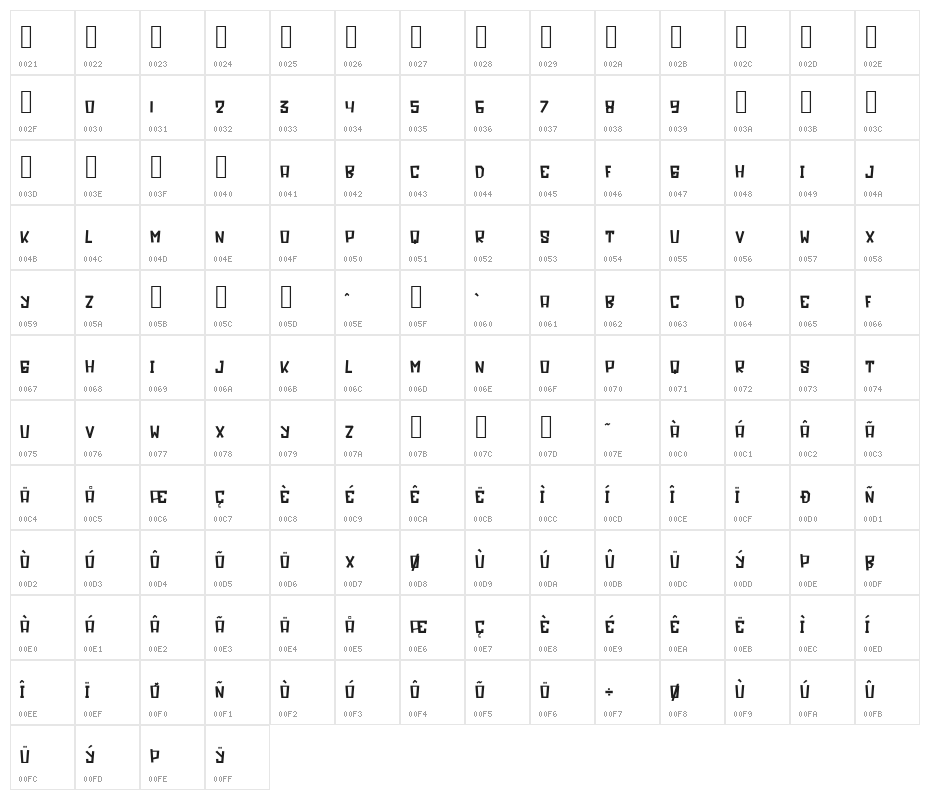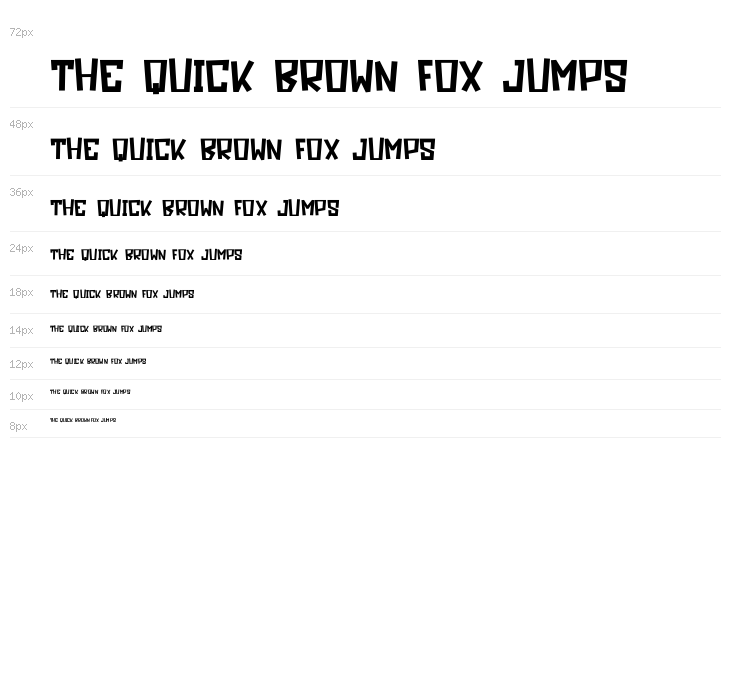
Limoline Font
Limoline Description
This font features a bold and angular design, characterized by its sharp edges and geometric shapes. The uppercase letters exhibit a strong presence with a slightly condensed form, giving them a compact and impactful appearance. The numbers follow the same stylistic cues, maintaining consistency throughout. The font's unique style is further emphasized by its high contrast between thick and thin strokes, adding a dynamic and modern touch. The absence of lowercase letters and special characters suggests a focus on simplicity and clarity, making it ideal for attention-grabbing headlines or logos.
| Proposed Projects | This font is perfect for projects that require a strong visual impact, such as branding, posters, or modern digital interfaces. Its bold and distinctive style makes it suitable for logos, signage, and advertising materials. |